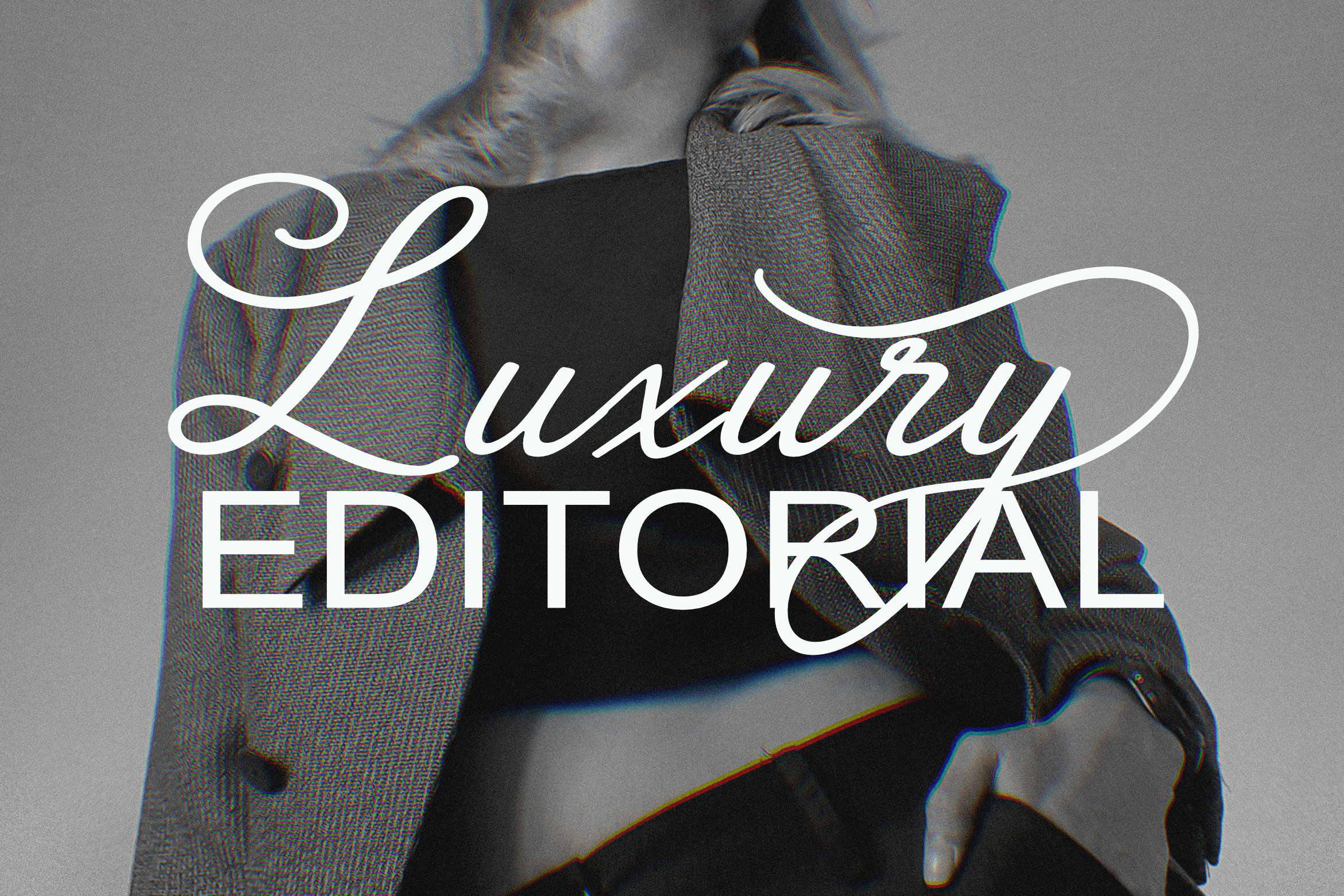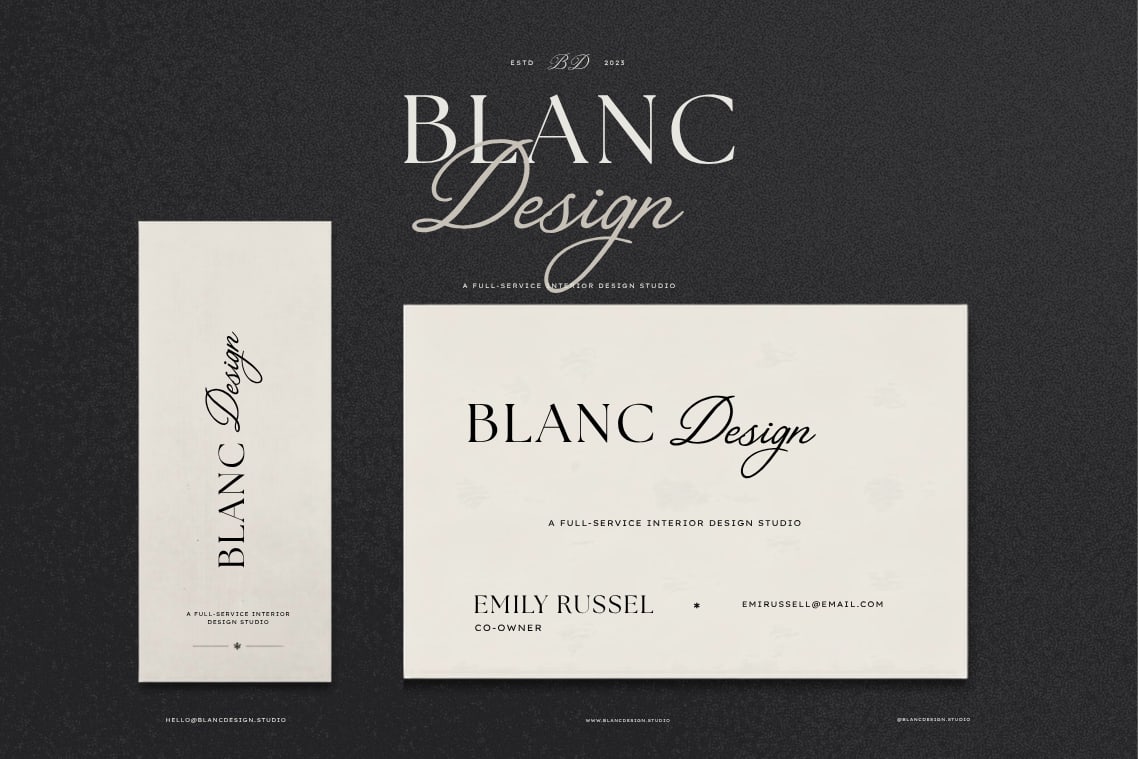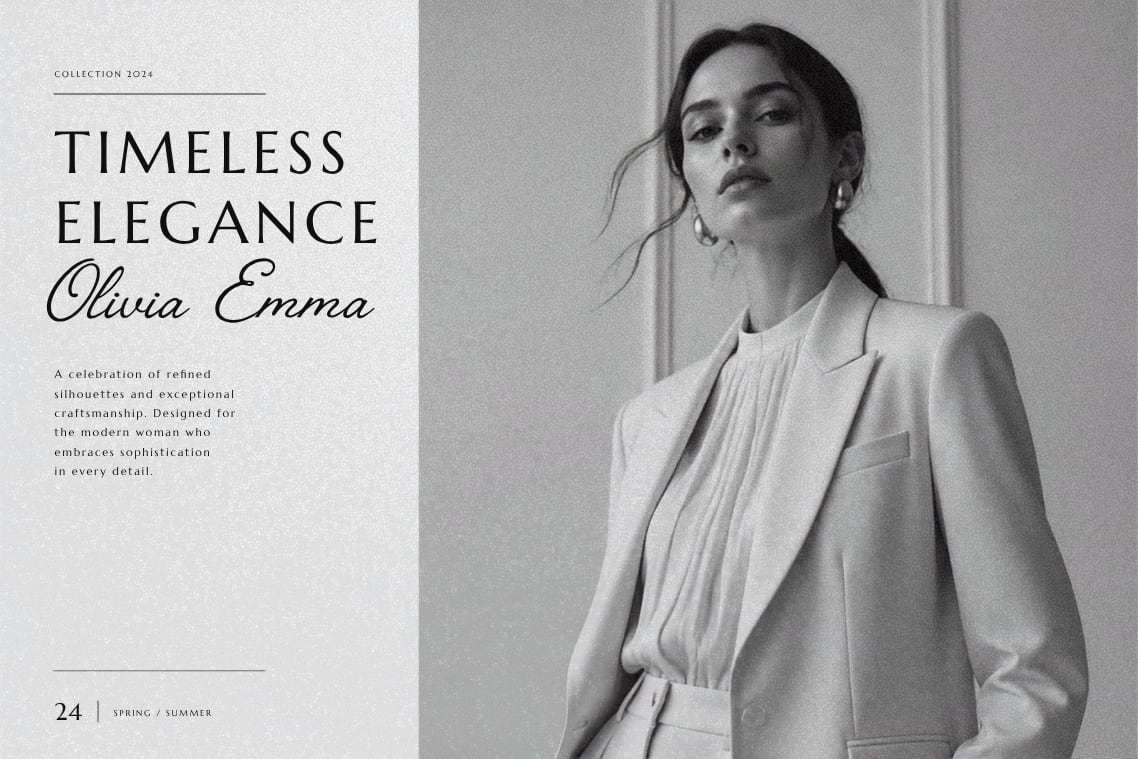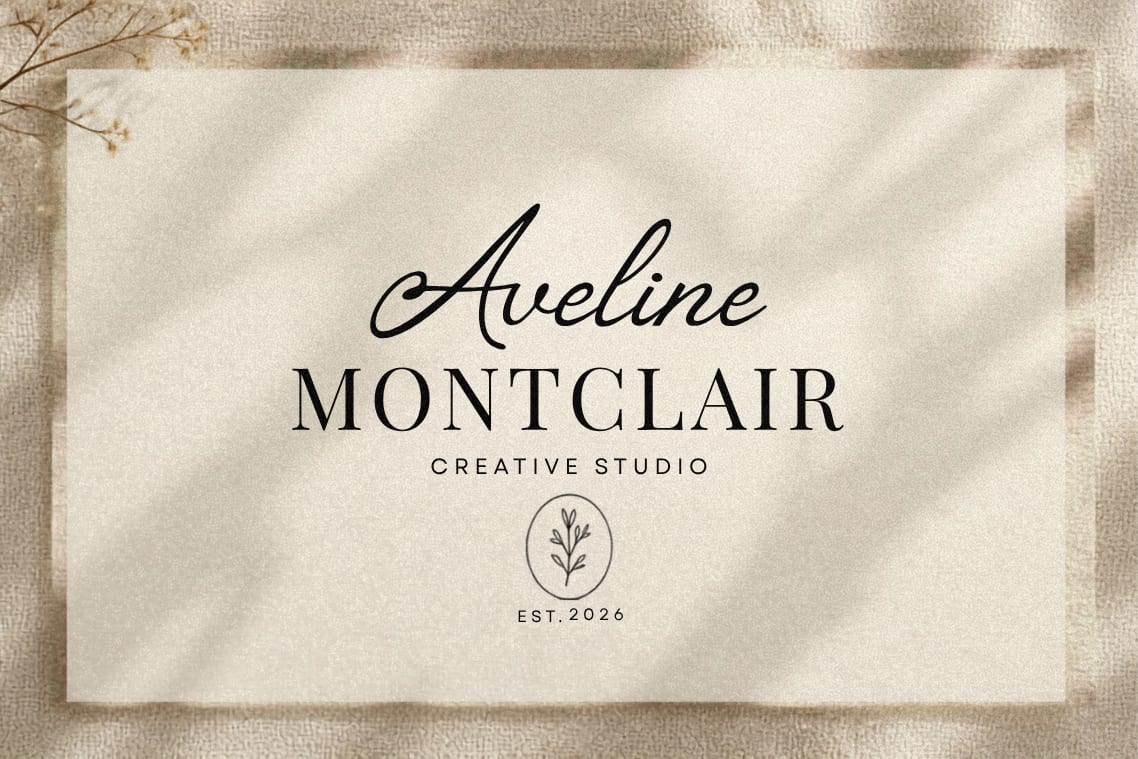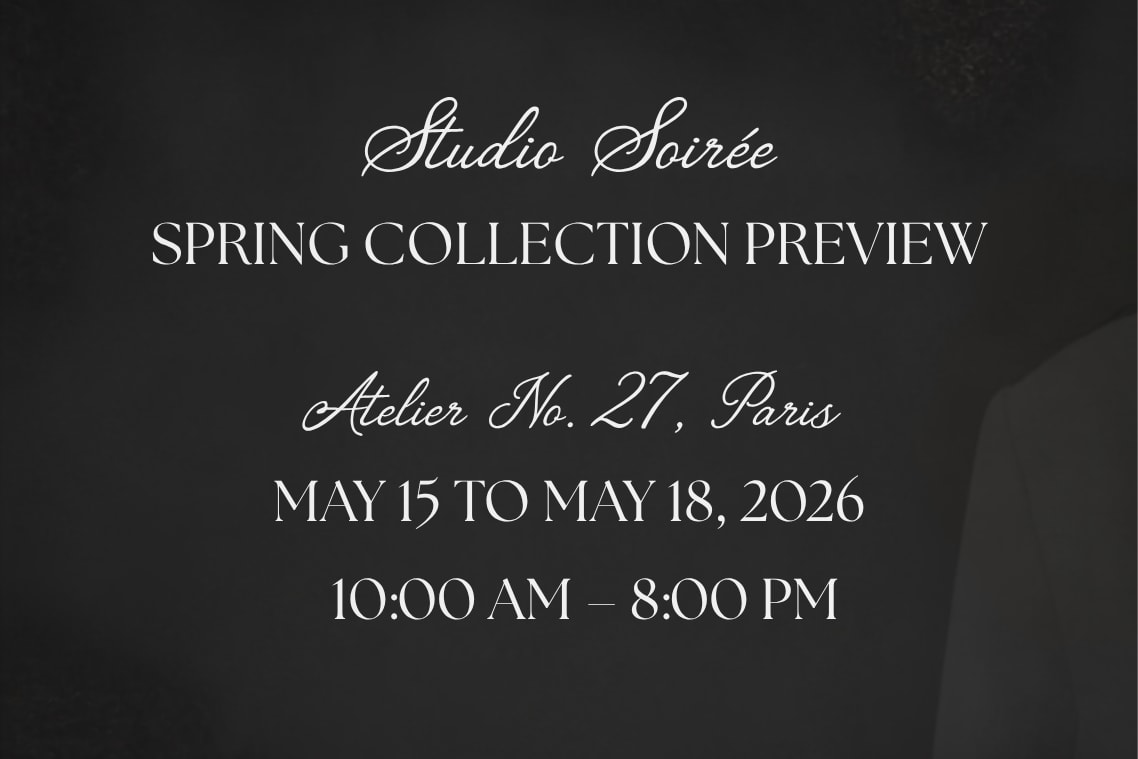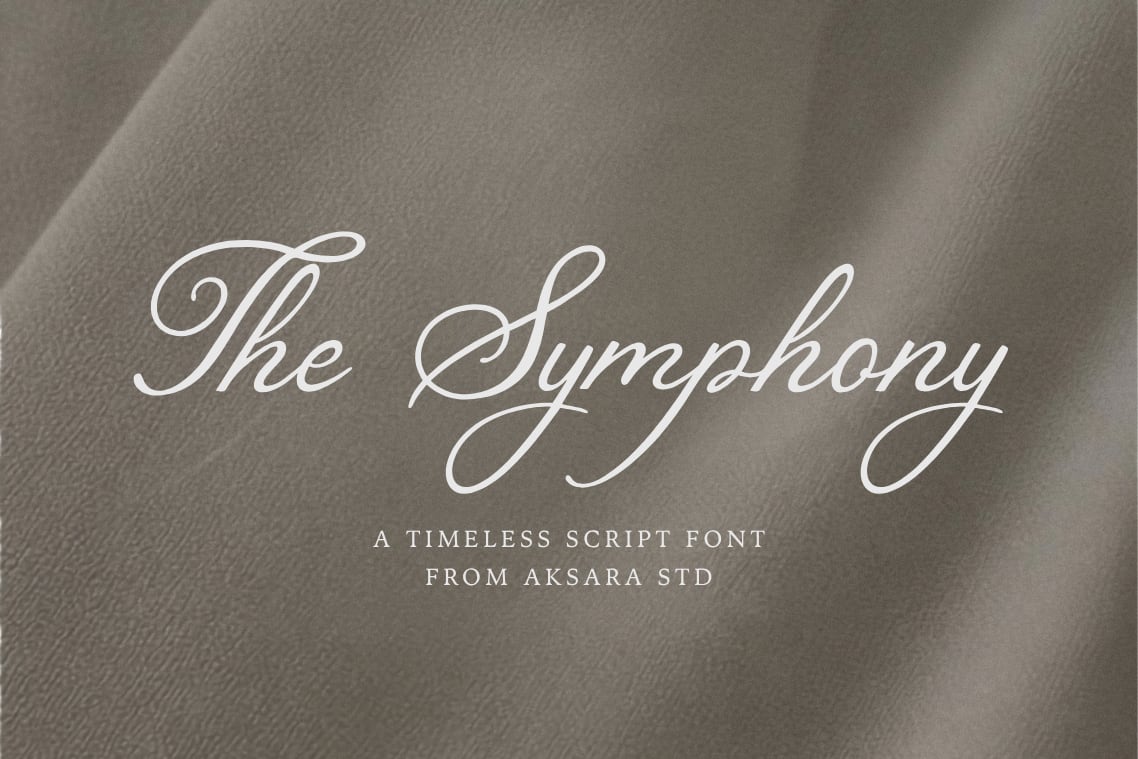
Perfect for personal branding, wedding stationery, fashion labels, signature logos, beauty products, boutique packaging, social media content, and editorial designs, The Symphony adds a refined and unforgettable touch to every project. Its expressive letterforms and harmonious flow make it an excellent choice for designers seeking both elegance and versatility.
Alternate Characters
Ligatures & Stylistic Features
Multilingual Support